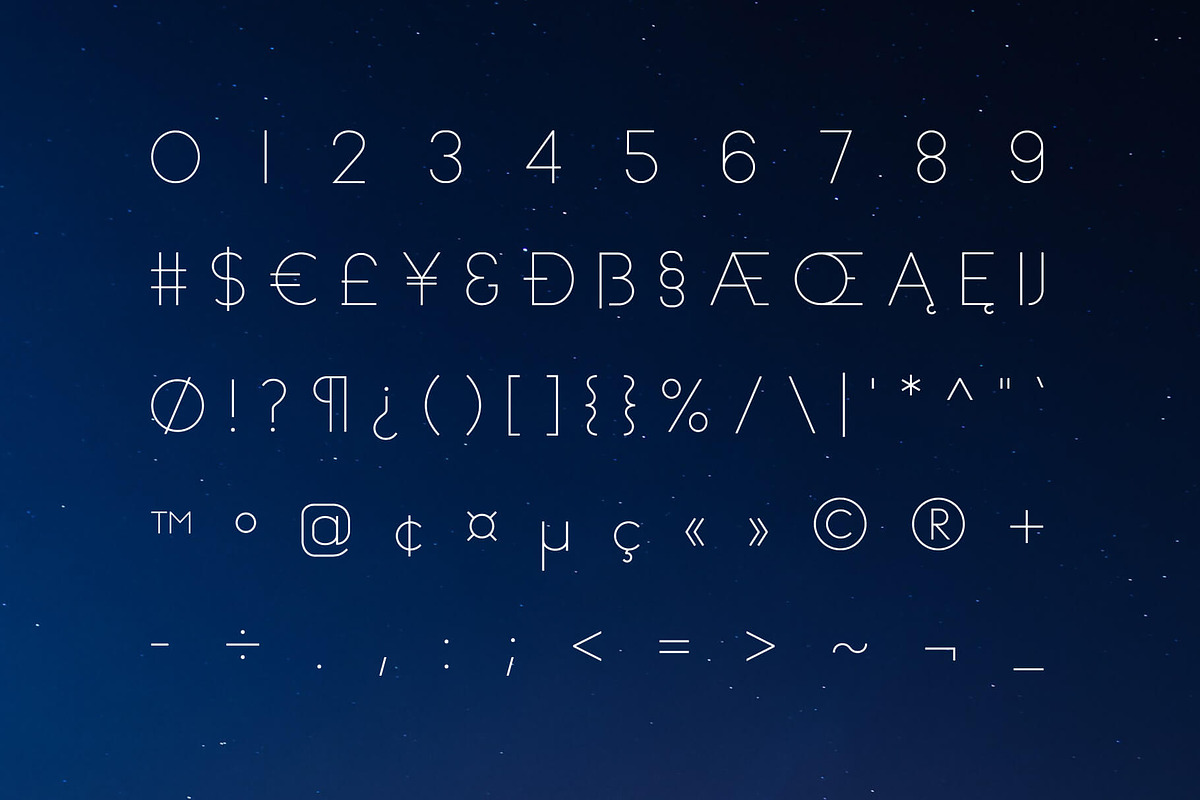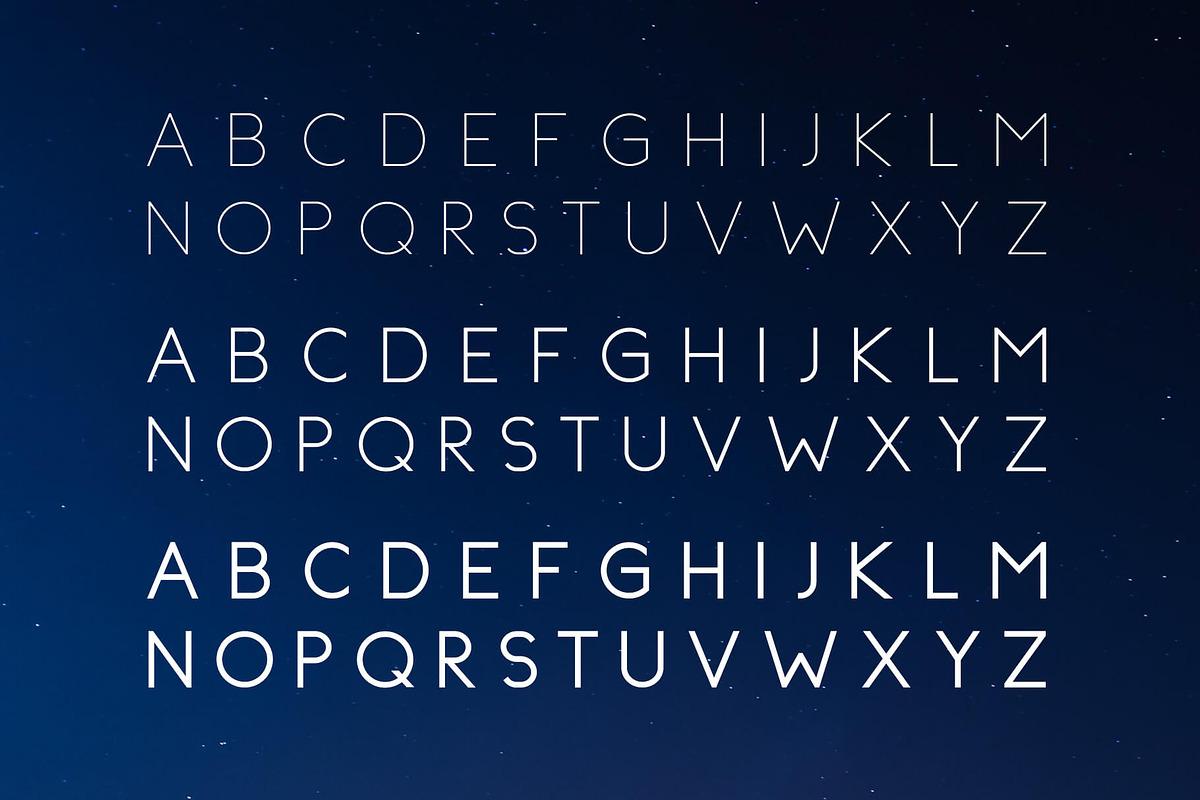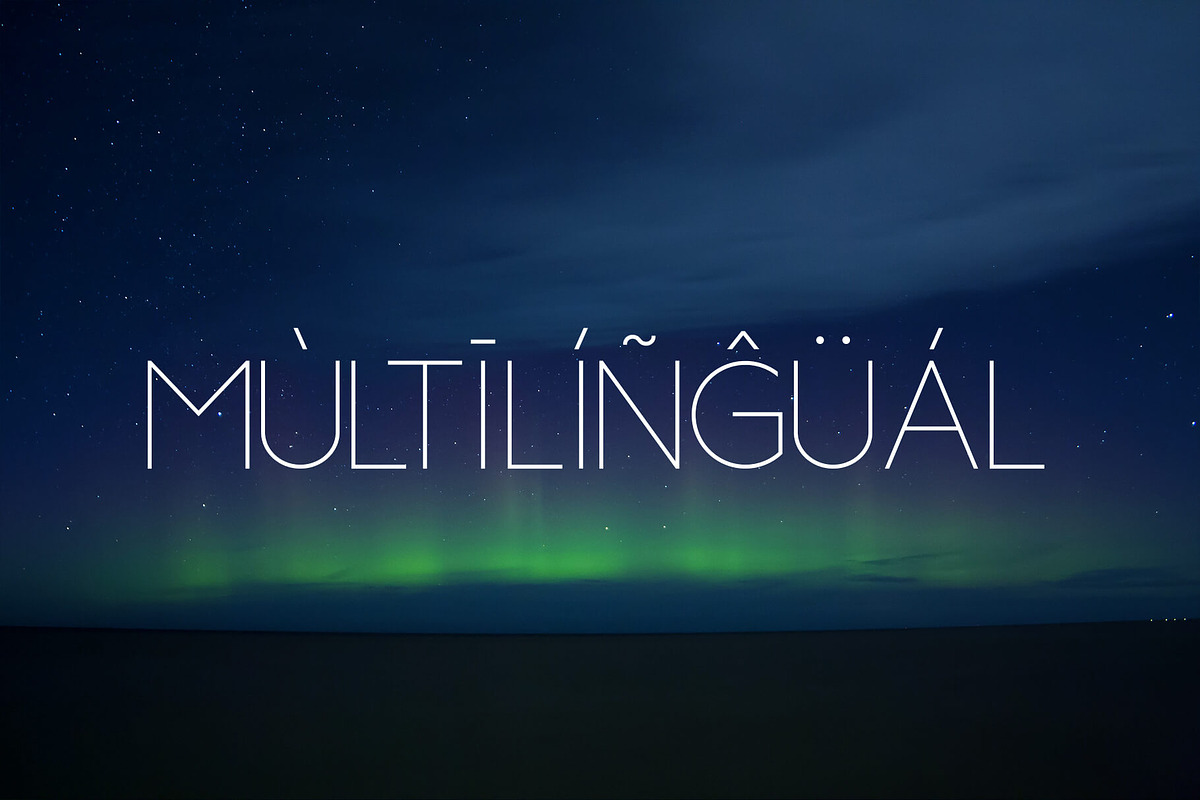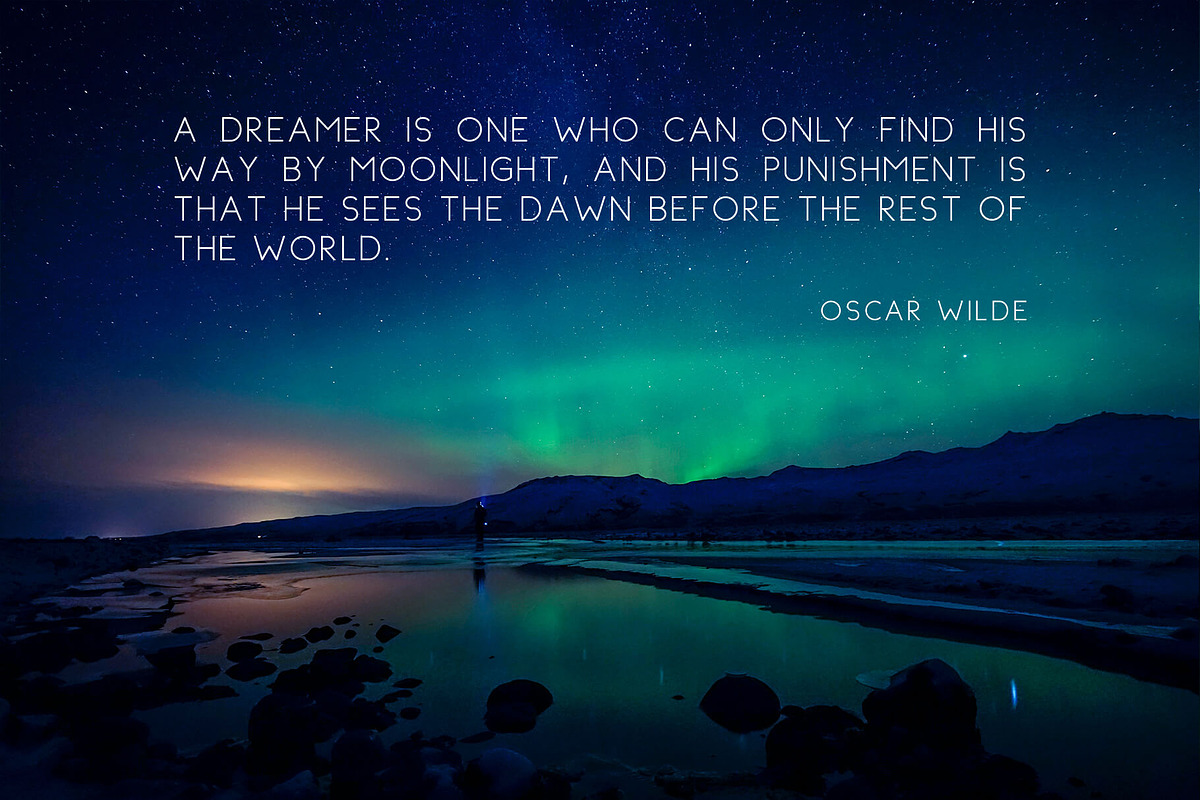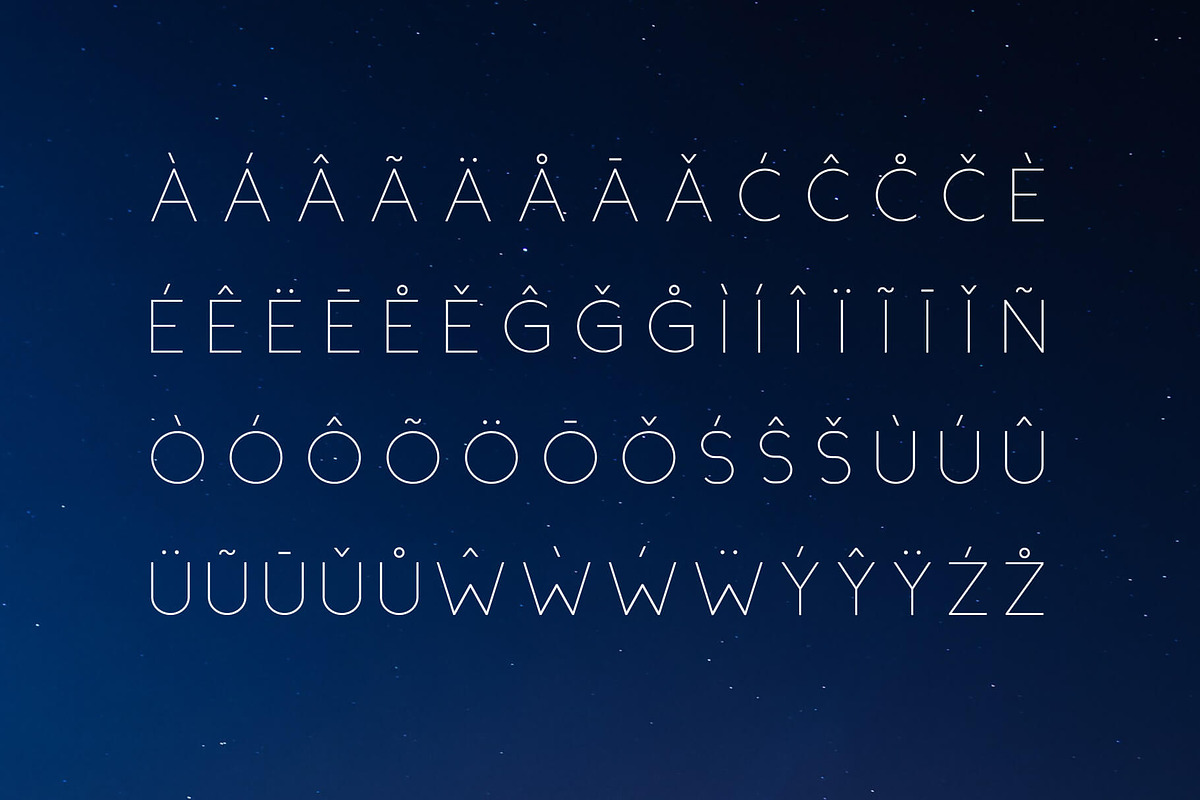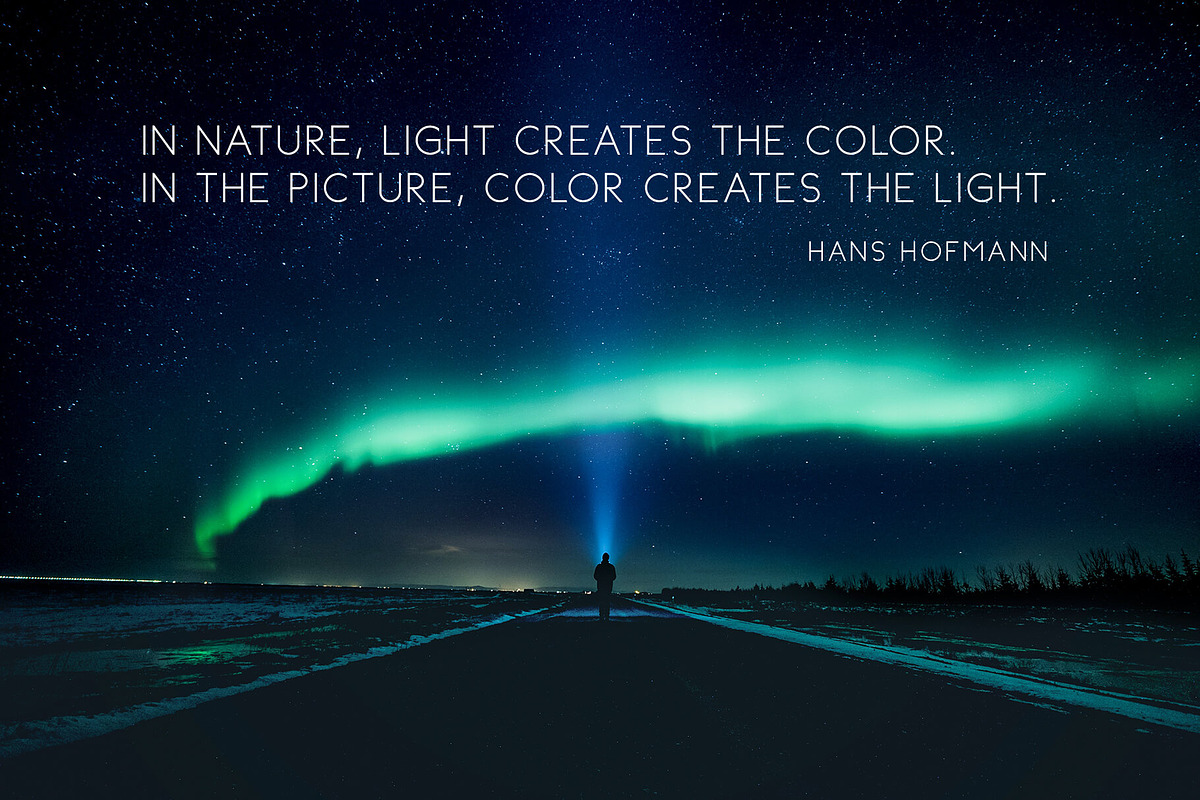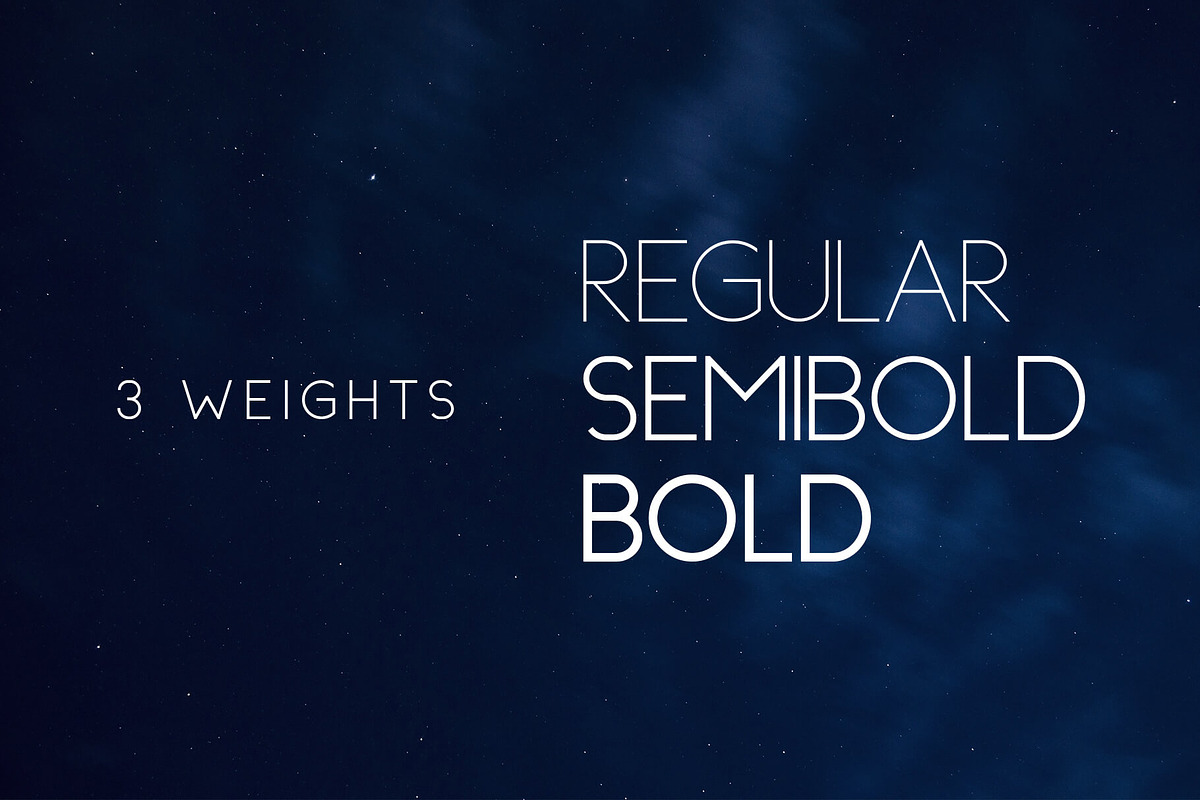
Topazia Font Family - Sans Serif
Topazia is an elegant and clean sans serif font. It’s a versatile font family designed for strong, classic branding. Topazia is perfect for any branding, logos, magazines, videos, weddings, quotes, print, product packaging, website, clothing designs and much more.
Multilingual (Foreign language characters)
- FEATURES Uppercase letters Numbers Punctuation Symbols Accented characters Regular Semibold Bold Multilingual (Foreign language characters)
- Topazia Regular
- Topazia Semibold
- Topazia Bold